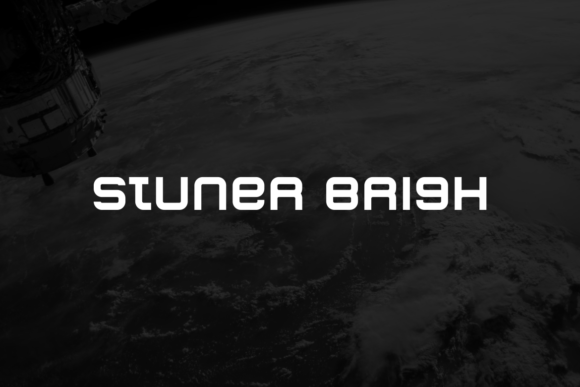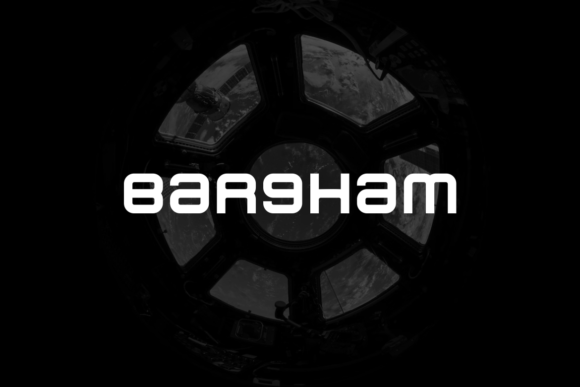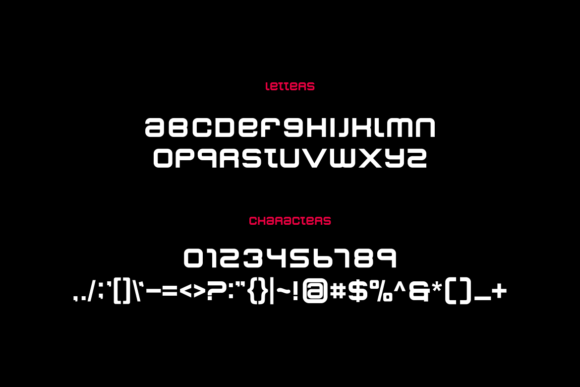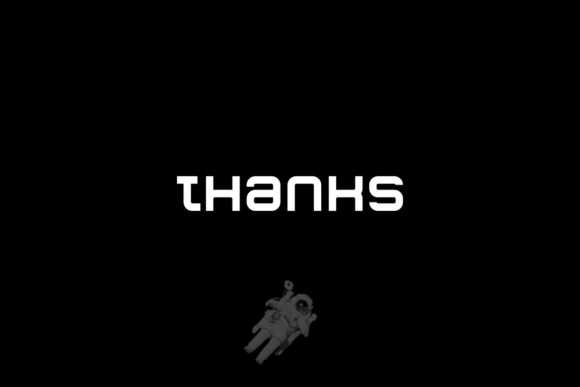
Abertos Font: The Ultimate Choice for Modern Designs
In the world of typography, fonts play a crucial role in making or breaking a design. A well-chosen font can elevate your project and make it stand out, while a poorly chosen one can have the opposite effect. For designers and crafters looking for a clean and modern sans serif font, Abertos is an excellent choice. In this article, we’ll explore the features and benefits of Abertos font and why it’s perfect for simple designs like posters, websites, and logos.
What is Abertos Font?
Abertos is a clean and modern sans serif font designed to provide a fresh and professional look to your designs. It features smooth, straight lines that make it easy to read and perfect for a wide range of applications. The font’s simplicity and elegance make it an excellent choice for designers who want to create simple yet effective designs.
Key Features of Abertos Font
- Clean and Modern Design: Abertos font boasts a clean and modern design that is perfect for creating simple and elegant designs.
- Smooth and Straight Lines: The font features smooth and straight lines that make it easy to read and provide a professional look.
- Sans Serif: Abertos is a sans serif font, which means it doesn’t have any decorative lines or flourishes at the end of the letters.
- Easy to Read: The font is designed to be easy to read, making it perfect for body text and headings.
Benefits of Using Abertos Font
So, why should you choose Abertos font for your designs? Here are some benefits of using Abertos:
- Fresh and Professional Look: Abertos font provides a fresh and professional look to your designs, making it perfect for businesses and individuals who want to create a modern image.
- Versatile: The font is versatile and can be used for a wide range of applications, including posters, websites, logos, and more.
- Easily Readable: Abertos font is easy to read, even at small sizes, making it perfect for body text and headings.
- Unique and Distinctive: While Abertos is a simple font, it has a unique and distinctive look that sets it apart from other sans serif fonts.
Use Cases for Abertos Font
Abertos font is perfect for a wide range of design projects, including:
- Posters and Flyers: Abertos font is perfect for creating eye-catching posters and flyers that require a clean and modern design.
- Websites and Blogs: The font is also suitable for websites and blogs, providing a fresh and professional look to your online presence.
- Logos and Branding: Abertos font can be used to create simple yet effective logos and branding materials that make a lasting impression.
- Business Cards and Stationery: The font is also perfect for creating business cards and stationery that require a clean and professional design.
In conclusion, Abertos font is an excellent choice for designers and crafters looking for a clean and modern sans serif font. Its smooth, straight lines and easy-to-read design make it perfect for simple designs like posters, websites, and logos. With its fresh and professional look, Abertos font is sure to elevate your designs and make them stand out. So, if you’re looking for a versatile and easily readable font, Abertos is definitely worth considering.